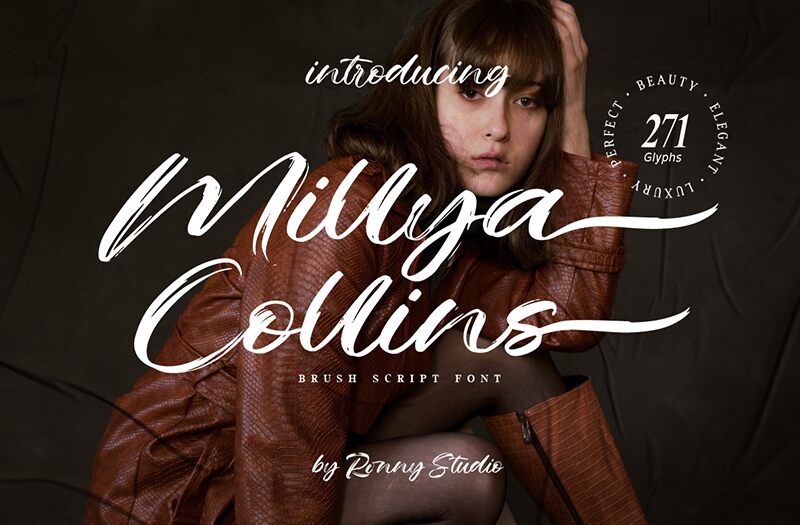
Millya Collins DEMO
Millya Collins font by Ronny Studio is a free brush font that embodies elegance and expressiveness. Its fluid and artistic flair brings a contemporary script style to your designs with a personal touch that carries an emotional character.
Use this font to write professional cards among others, invitation cards, weddings, quotes, posters and flyers, branding projects for clothing items or accessories, typography artwork etc.